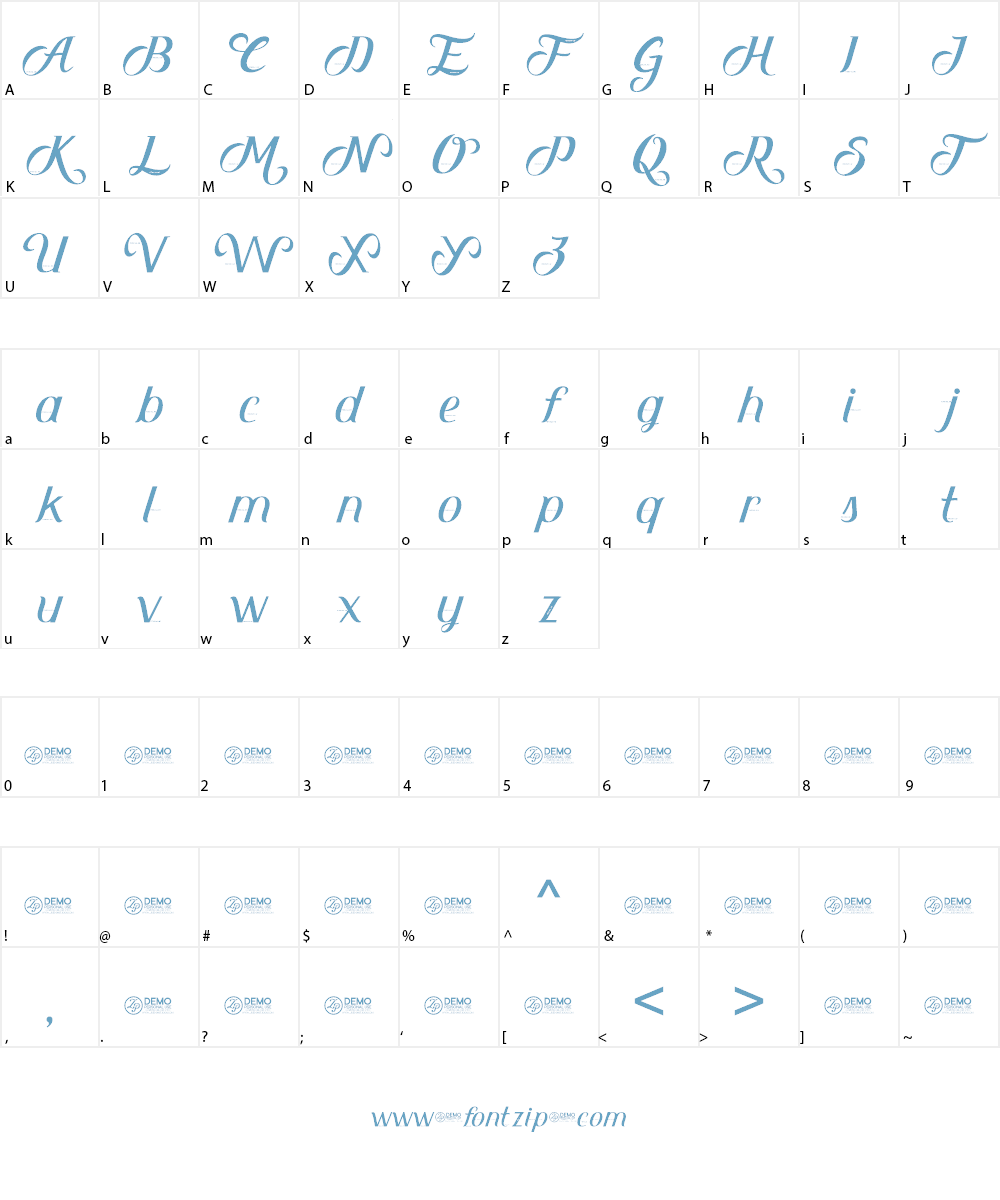
Zilap Sensitive, the source of sensuality, an idea full of curves, sensations, emotions, with a free and artistic design that make up each letter, each text and each word.
The clean and attractive concept allows brands or companies to have a graphic, versatile and dynamic domain of this source. The design of this project is very complete, given that the Script fonts are limited with the characters, with our project we decided to expand the standards so that their use is national and international.
Design and construction: Zilap Estudio.